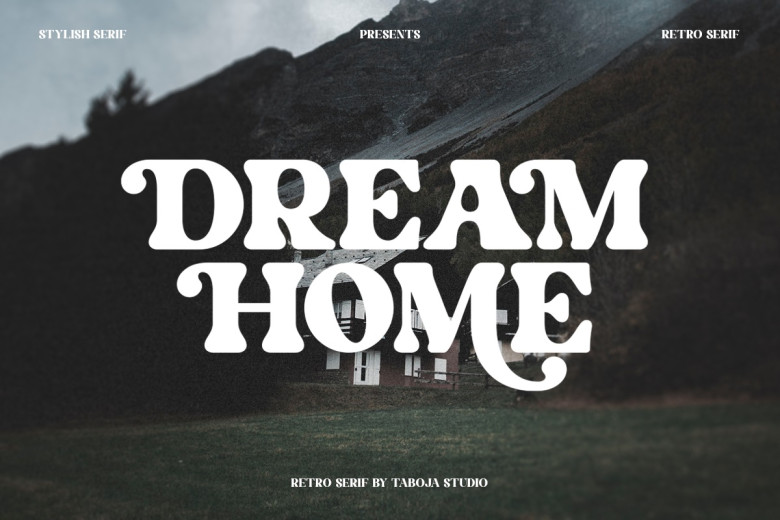
Dream Home Font
Dream Home is a vintage display serif font with timeless appeal and bold style, inspired by vintage styles of old. Every letter of Dream Home is carefully hand-crafted by expert letter-crafters with meticulous care given to every letter form to ensure an appealing and distinct appearance.
Ideal for projects which require creating nostalgic yet elegant atmosphere such as packaging, posters, logos and promotional materials this font adds extra dimension to designs while captivating people with its retro charm and distinctness.
Dream Home Serif Font